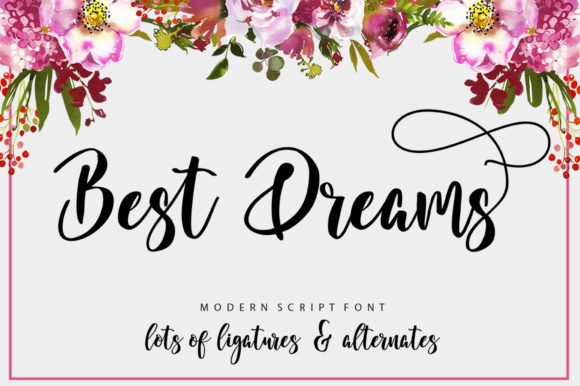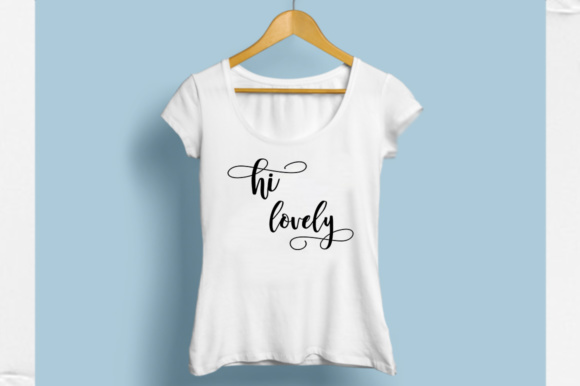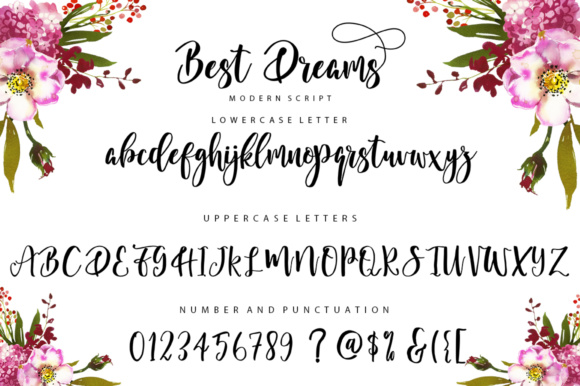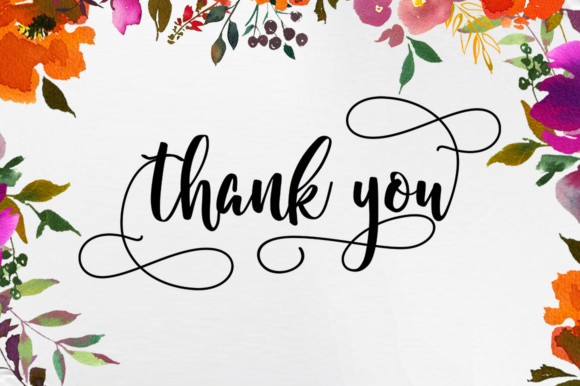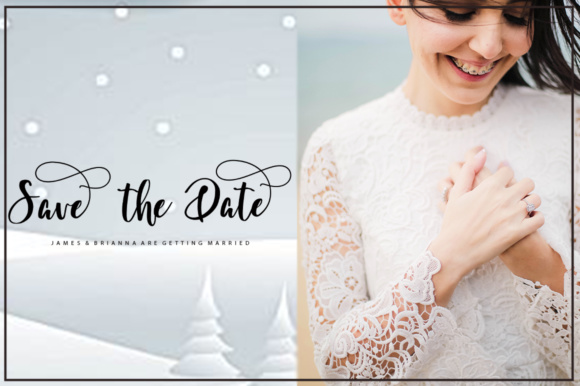
Best Dreams Font
About Best Dreams Font
Best Dreams is a modern script font with an irregular baseline and a trendy and feminine style. It can be used for wedding invitations, thank you cards, quotes, greeting cards, logos, business cards and more. Perfect for using in ink or watercolor.